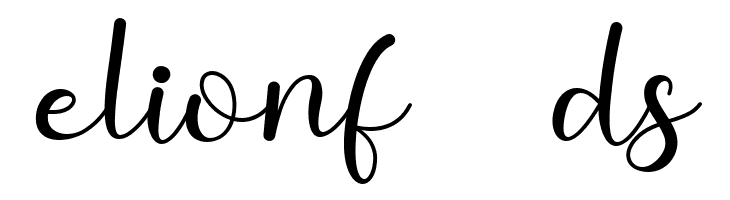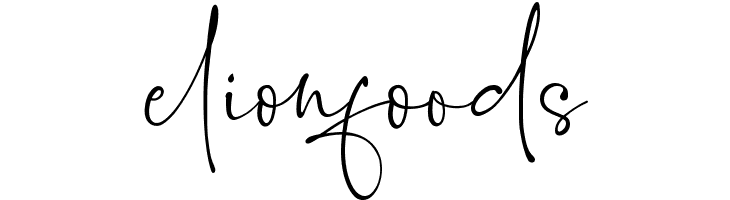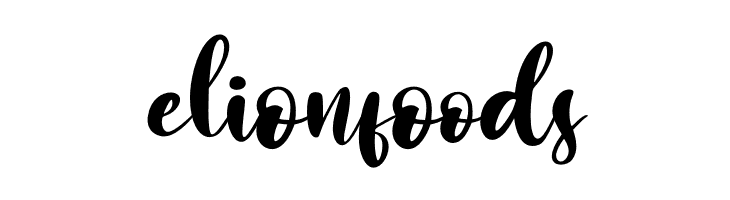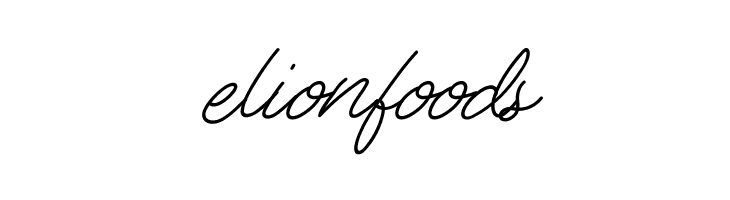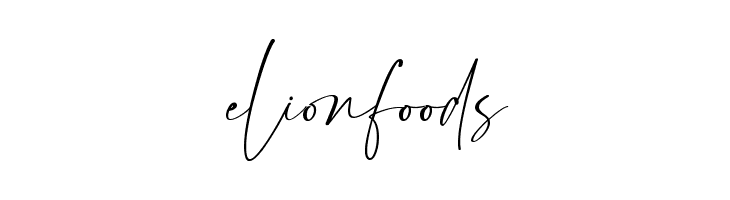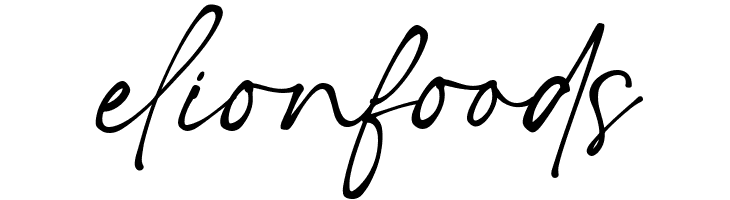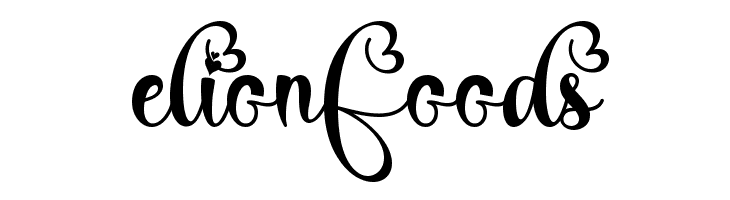
A bold, condensed font with a strong vertical emphasis and minimal character spacing.
An elegant script font with flowing, cursive strokes and sophisticated design.
A classic serif typeface with high contrast and sharp serifs, exuding elegance and sophistication.
A romantic serif font with heart-shaped embellishments and a playful style.
A hand-drawn, artistic font with dynamic strokes and decorative elements.
A classic serif font with balanced proportions and elegant strokes.
A bold, condensed font with a classic yet modern Roman style.
A cursive, script-style font with elegant loops and historical charm.
A classic serif font with a formal and elegant style.
A bold, modern font with geometric influences and clean lines.
A pixelated, monospaced font with a retro, digital aesthetic.
A classic serif font with elegant serifs and balanced proportions, ideal for formal and academic use.
A classic serif font with elegant, well-defined characters and moderate contrast.
A classic serif font with elegant strokes and refined proportions.
A playful, rounded font with bold, smooth curves and a modern aesthetic.
A classic serif typeface with elegant proportions and refined serifs.
A bold, geometric typeface with a strong, industrial feel.
An elegant script font with flowing, cursive letterforms and intricate details.
A classic serif font with elegant, well-proportioned characters and distinct serifs.
A geometric and decorative font with bold, angular shapes and artistic flair.
A modern serif font with elegant curves and balanced proportions.
A classic serif font with elegant details and balanced proportions.
A playful, handwritten-style font with cursive uppercase and rounded lowercase letters.
A bold, slab serif font with high contrast and a modern yet classic style.
A grungy, distressed font with a hand-drawn, edgy style.
A classic serif font with elegant proportions and subtle stroke contrast.
A classic serif font with high contrast and elegant, pointed serifs.